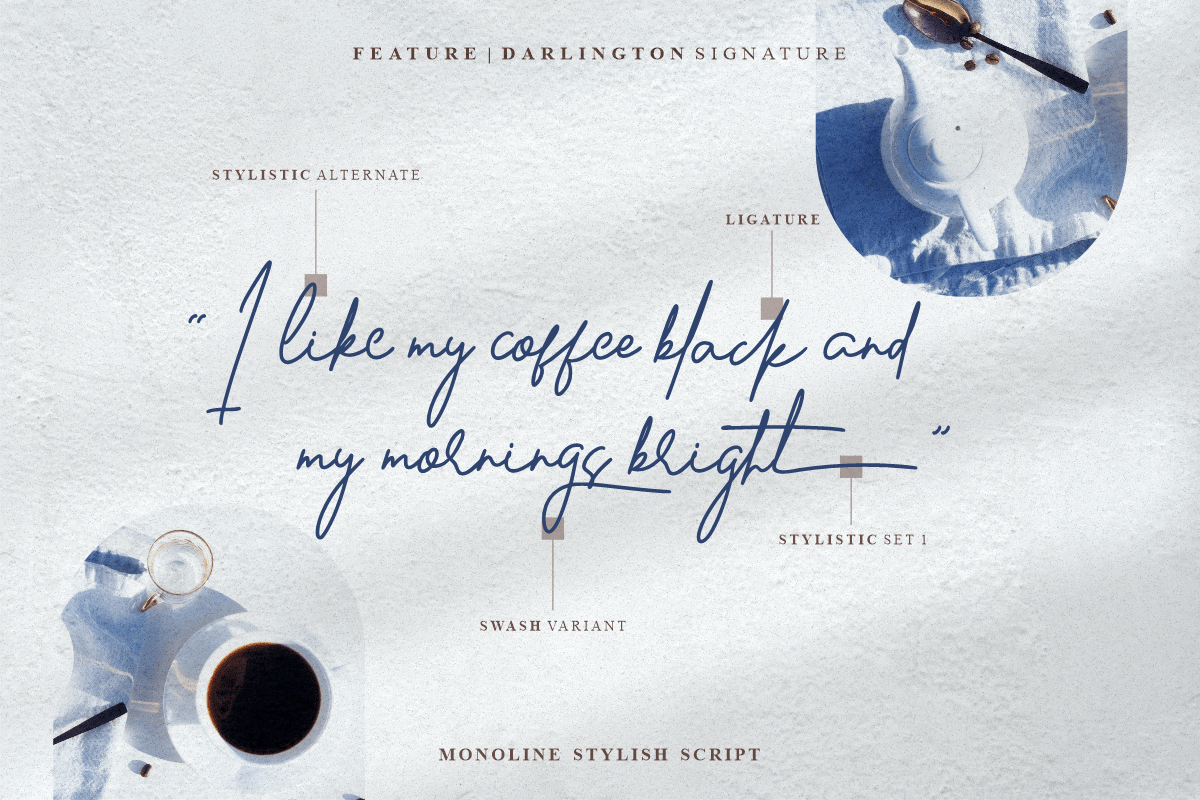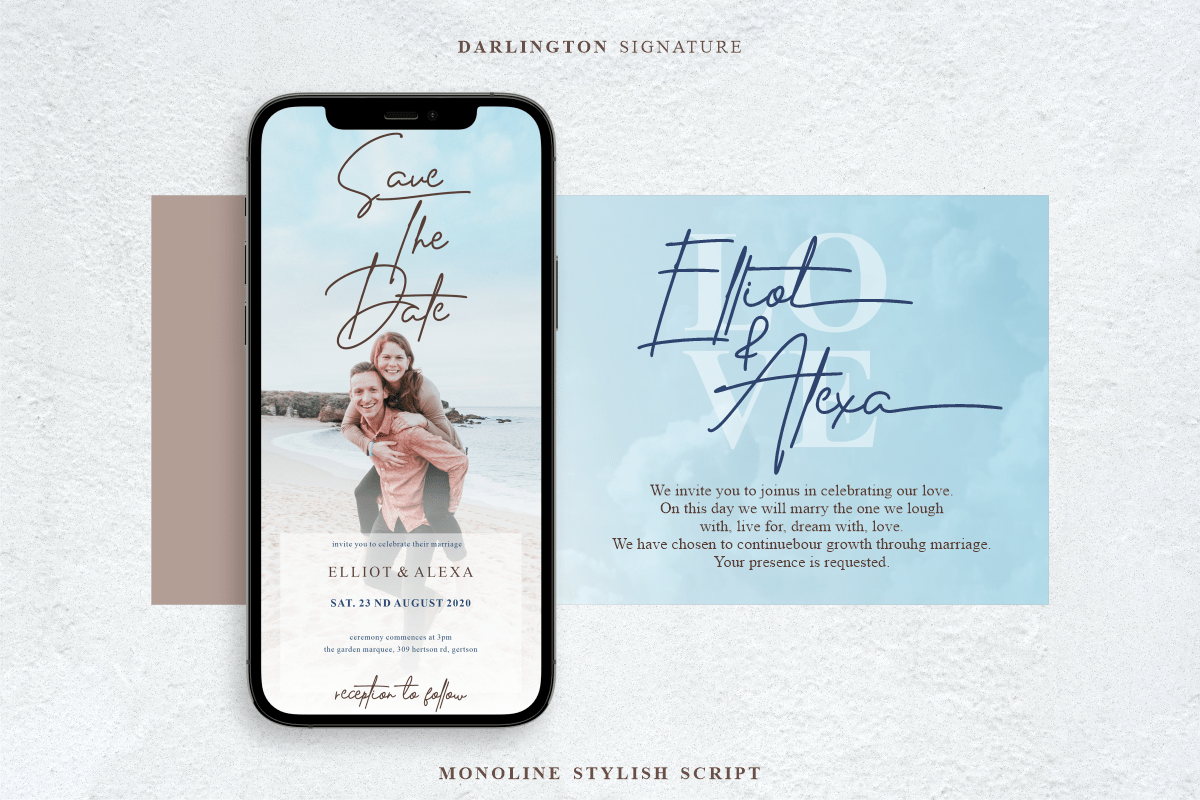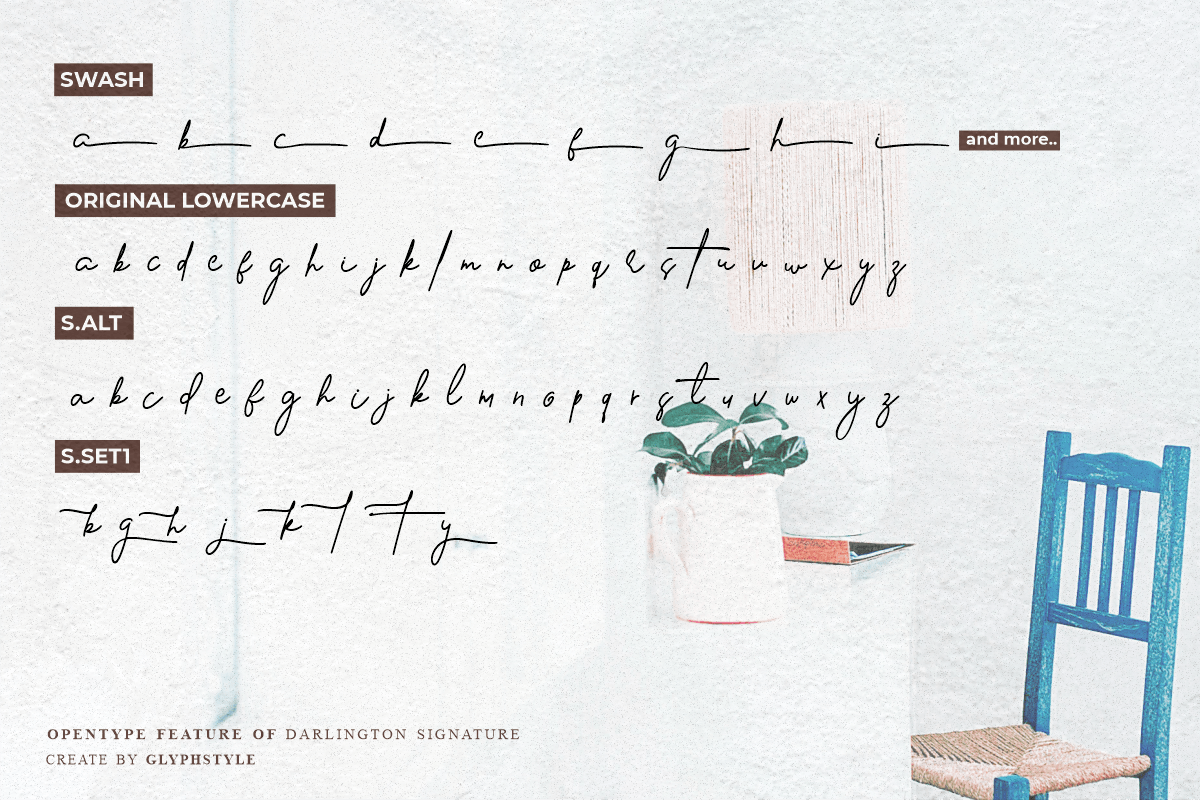
Darlington Signature Script Font
This is a modern signature script font, looks stylish and fashionable. The elegant curves make this font very pretty.